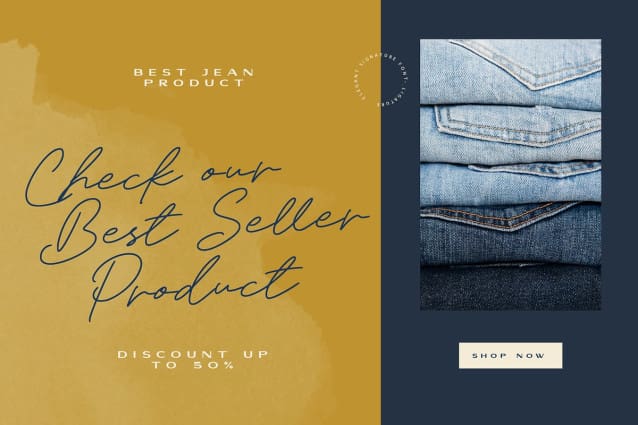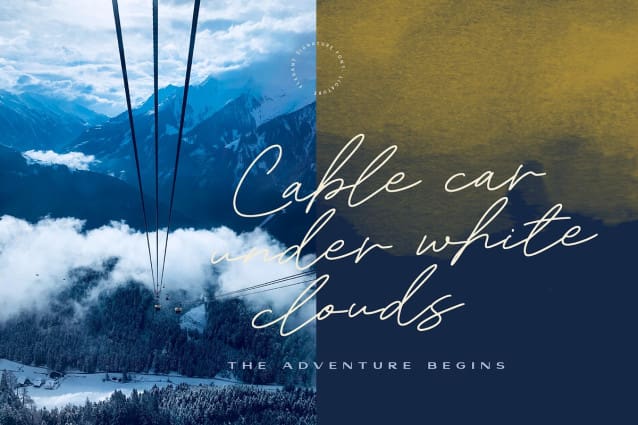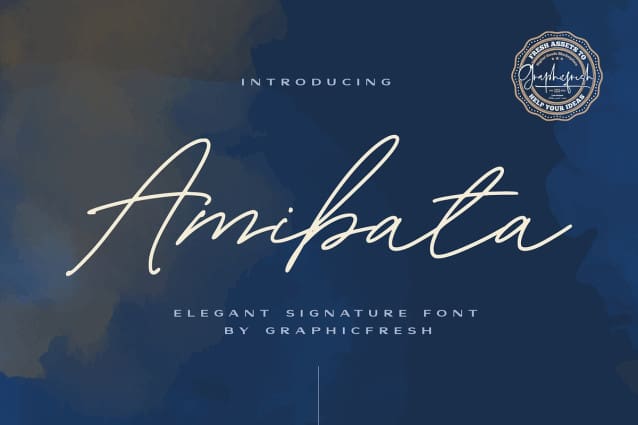
Amibata Signature Font
Amibata Signature Font. It comes with an elegant and modern style which is perfect to make any design stand out! This font is perfect for branding, wedding invites, magazines, mugs, business cards, quotes, posters, and more.